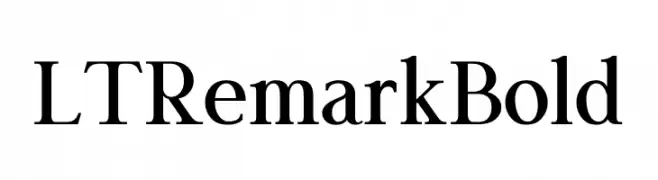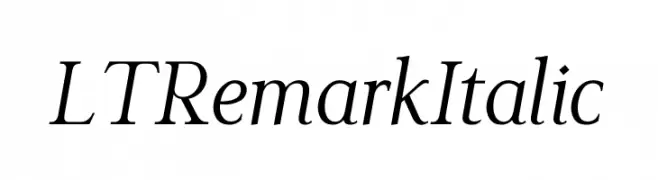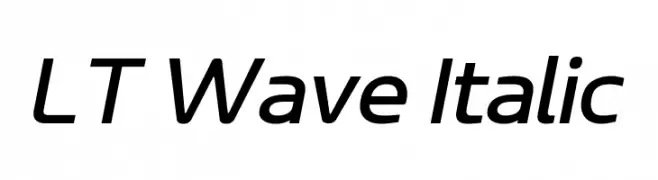
A bold, italic, and modern font with dynamic slanted characters.
A modern sans-serif font with smooth curves and balanced proportions.
A sleek, modern italic font with smooth curves and clean lines.
A sleek, modern, light italic font with medium contrast and normal spacing.
A classic serif font with elegant strokes and balanced proportions.
An elegant italic serif font with smooth, flowing letterforms and subtle serifs.
A bold, classic serif typeface with strong, authoritative strokes.
A bold serif font with thick strokes and classic elegance.
A bold, modern sans-serif font with clean lines and balanced spacing.
A modern, geometric sans-serif font with clean lines and uniform strokes.